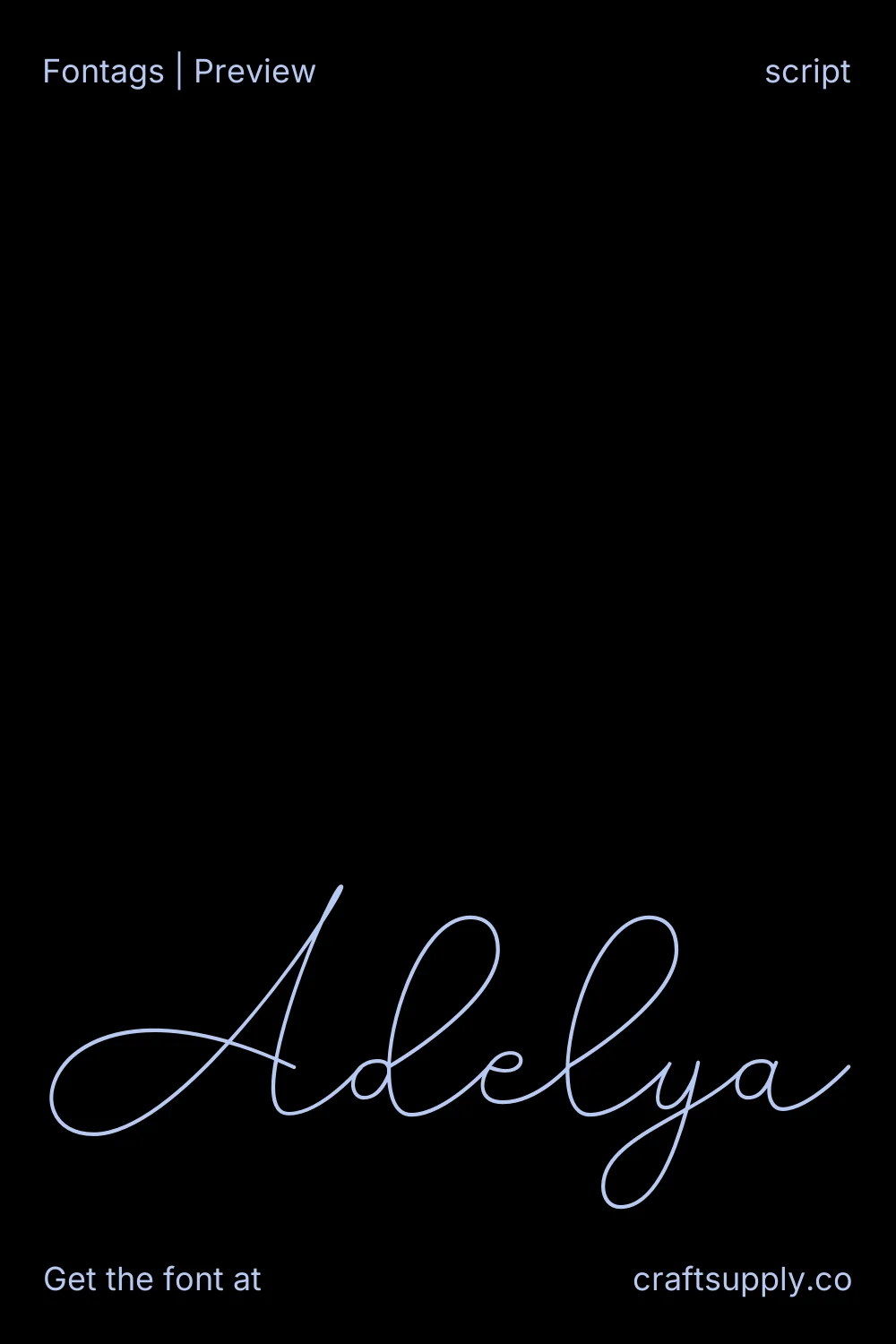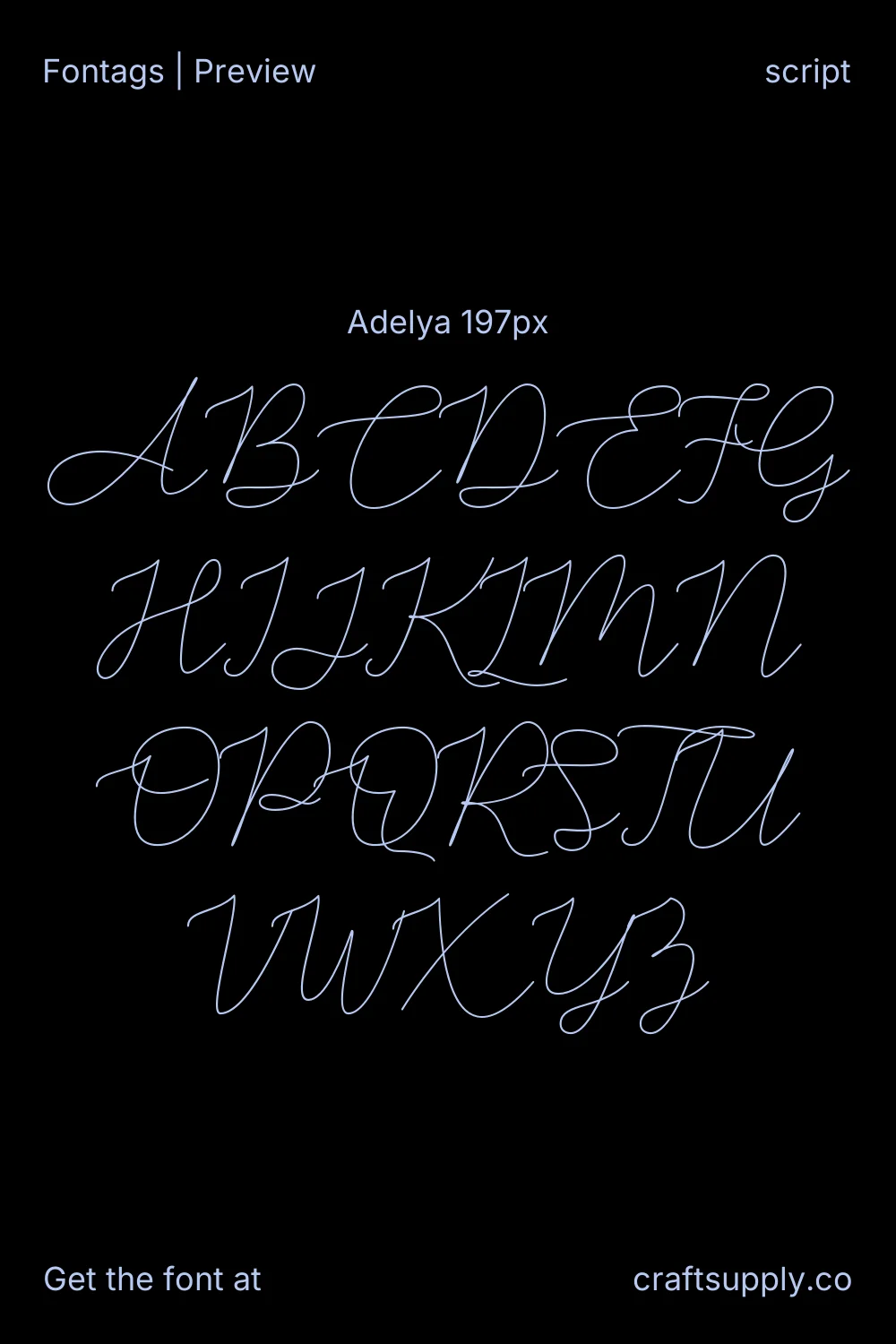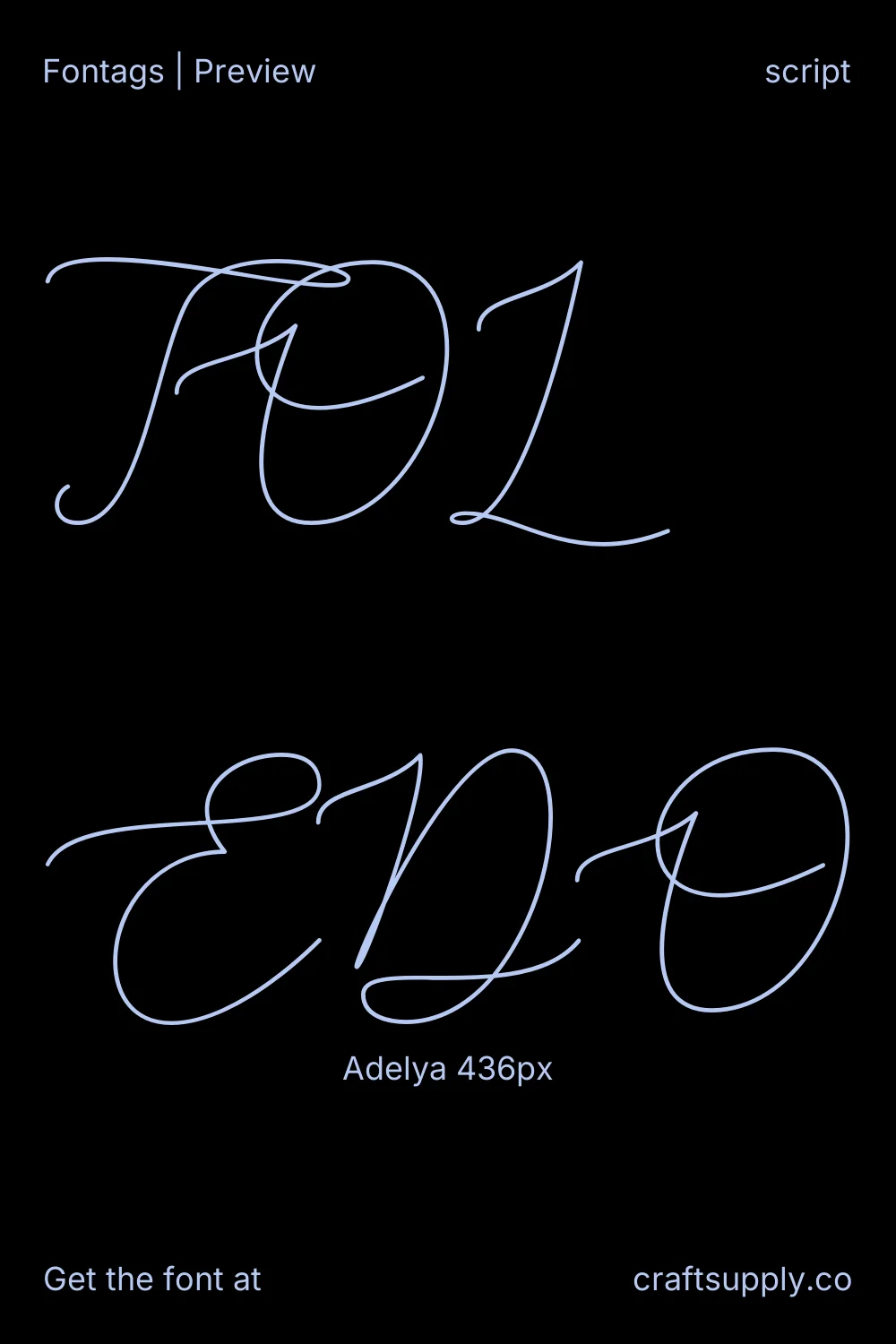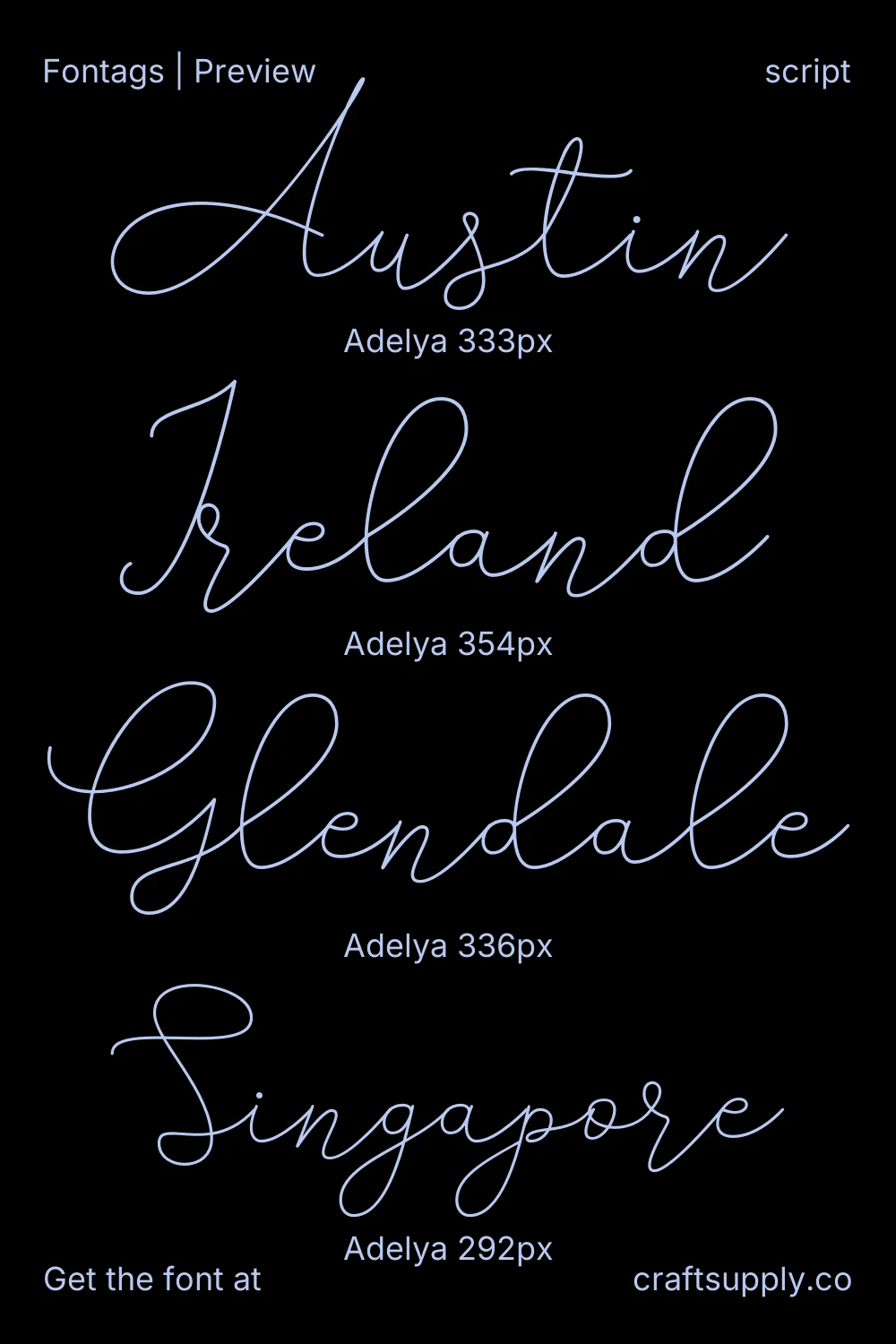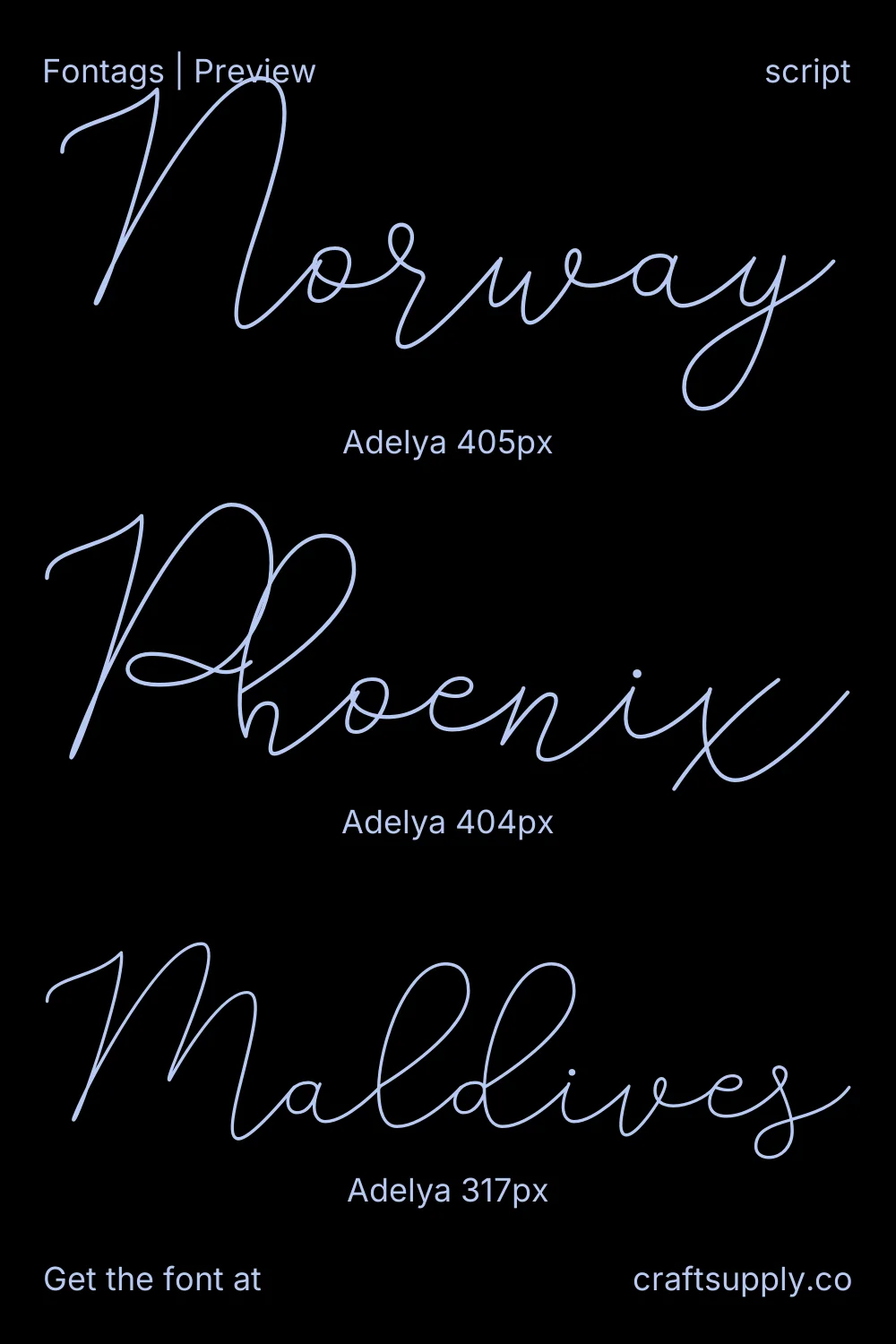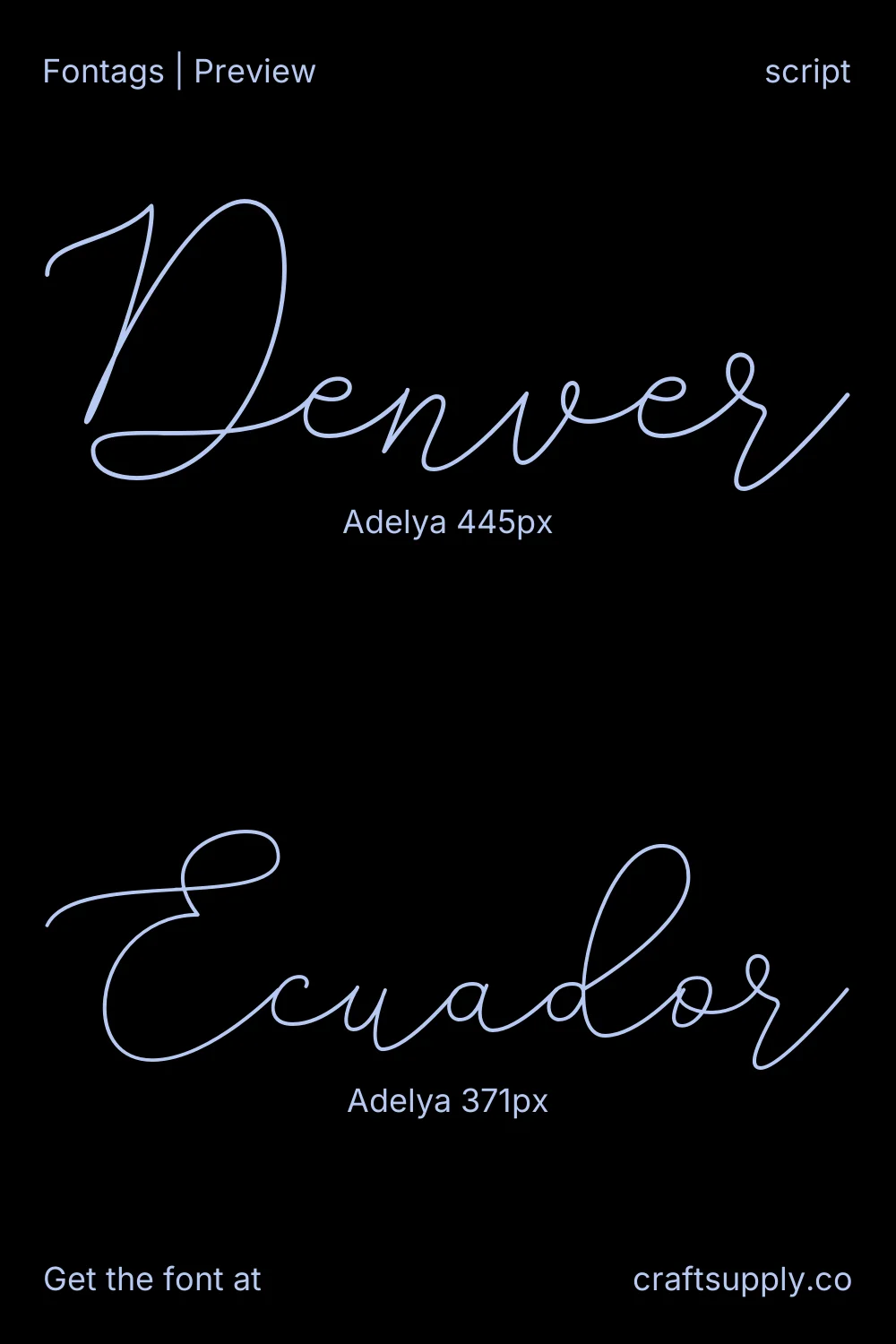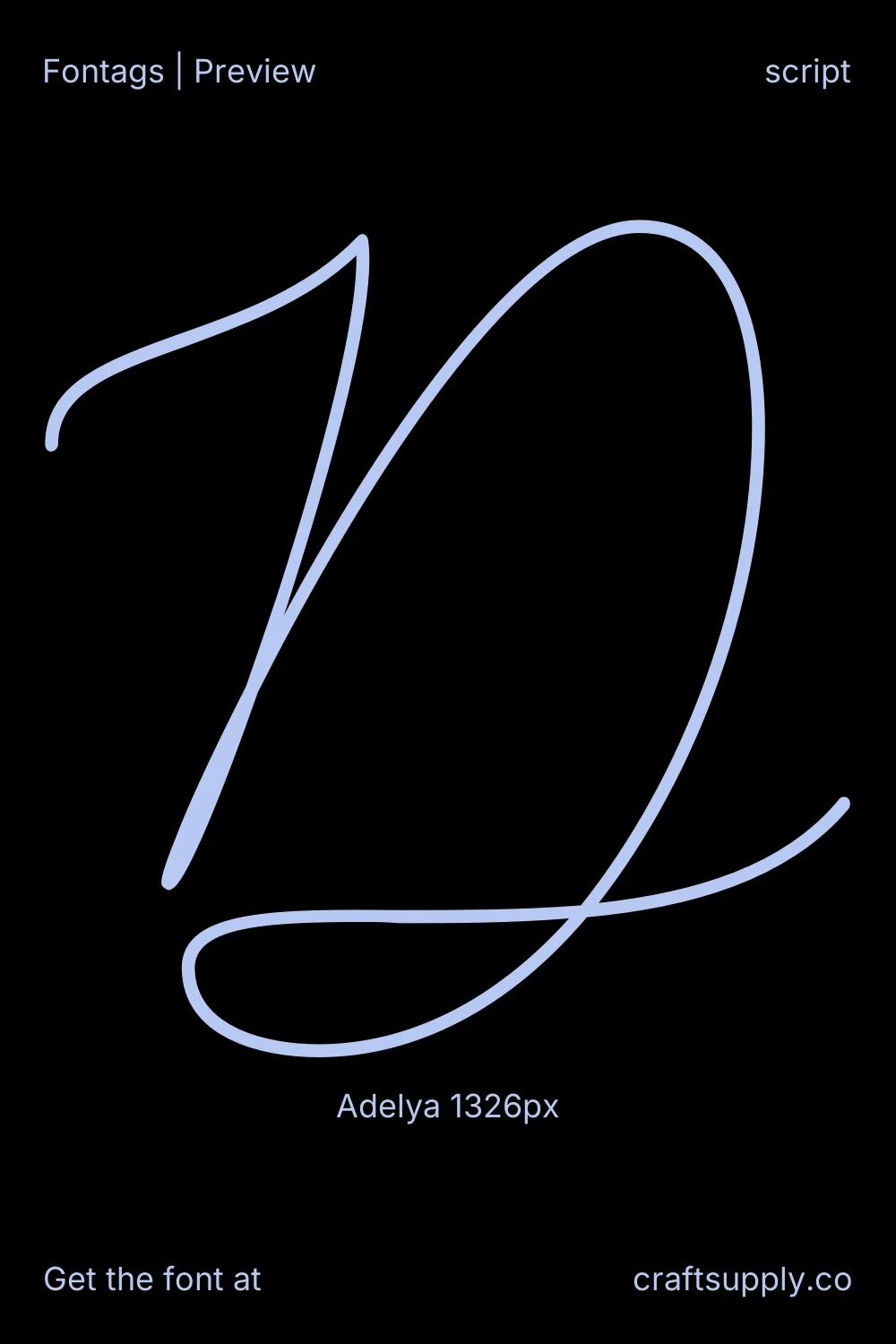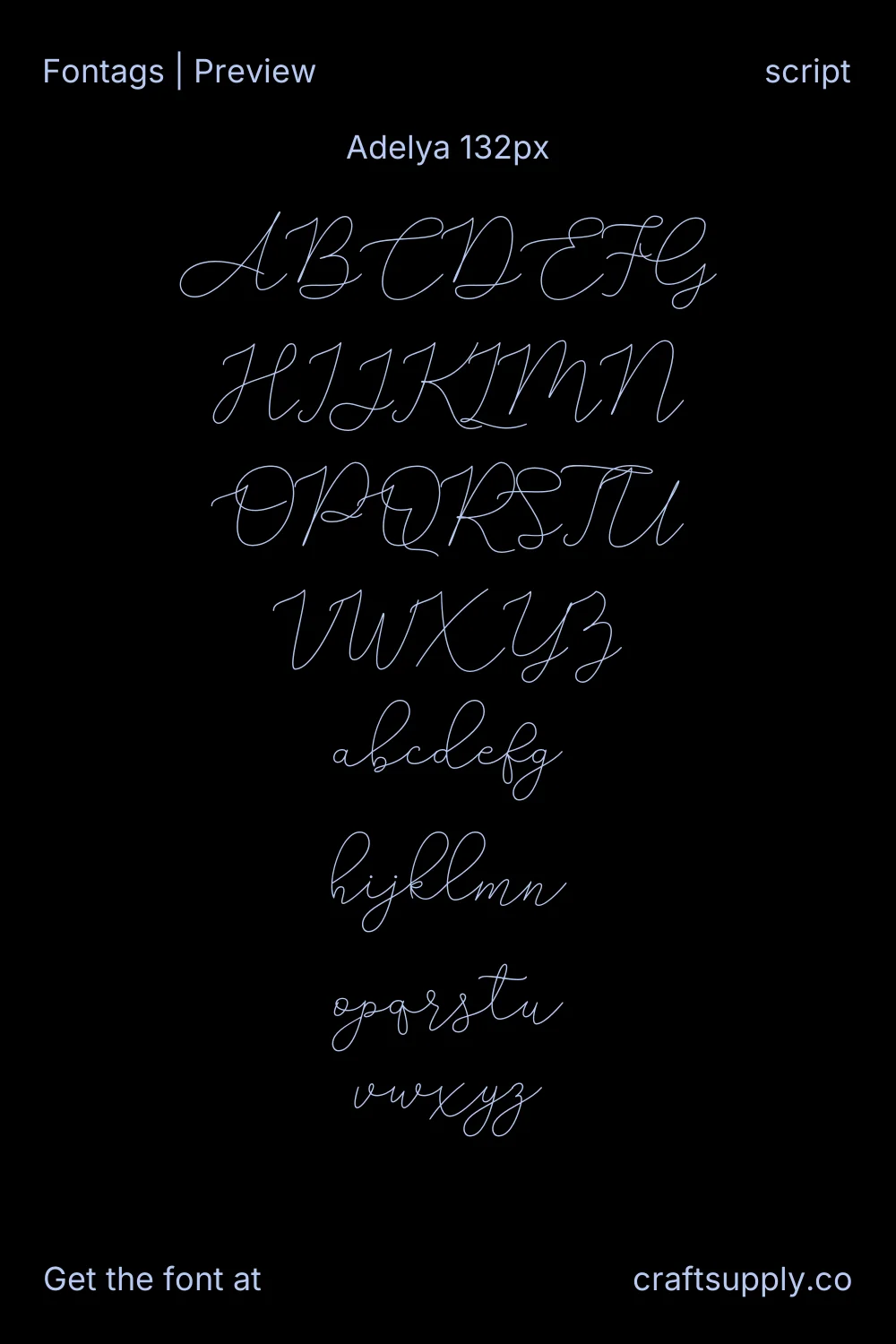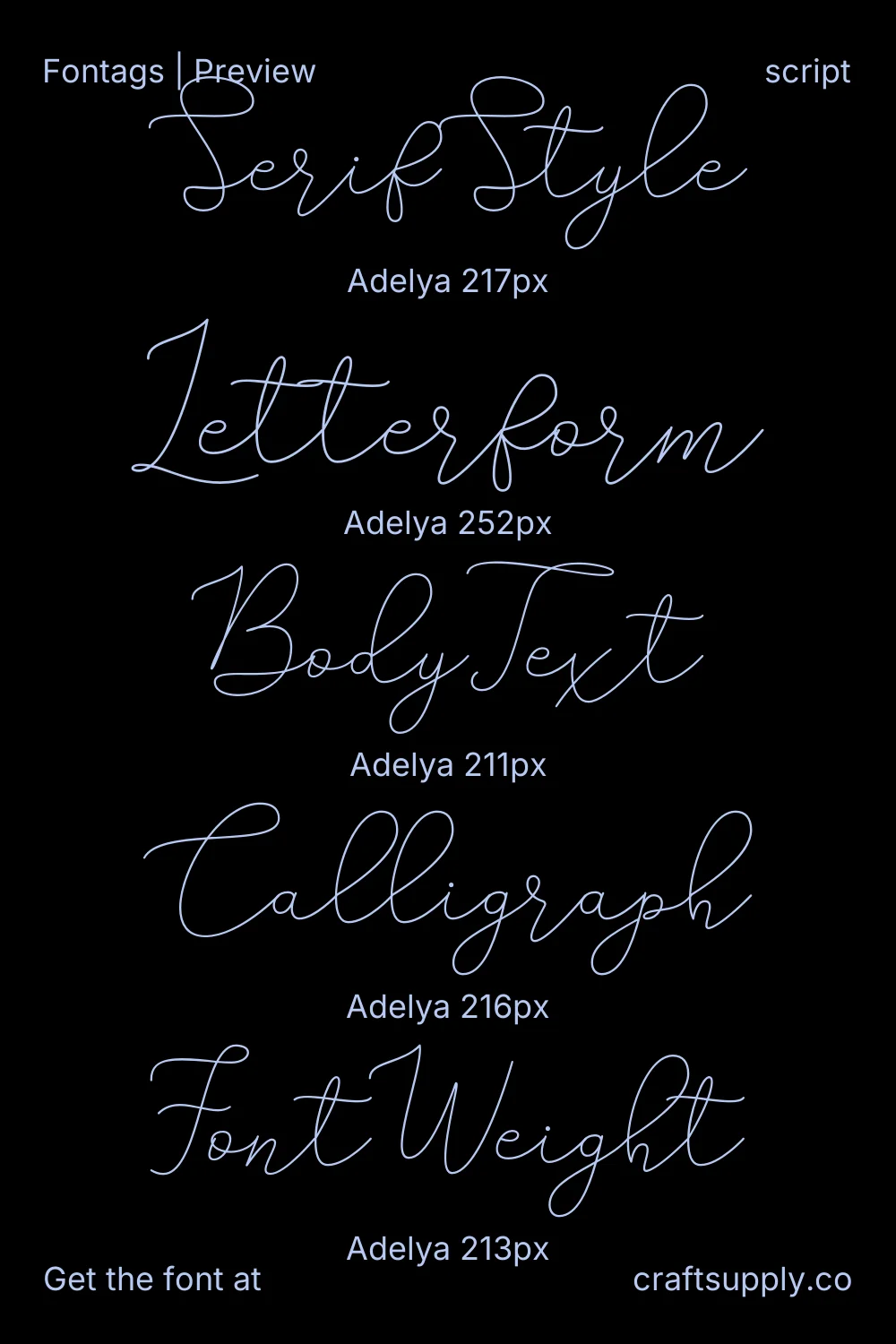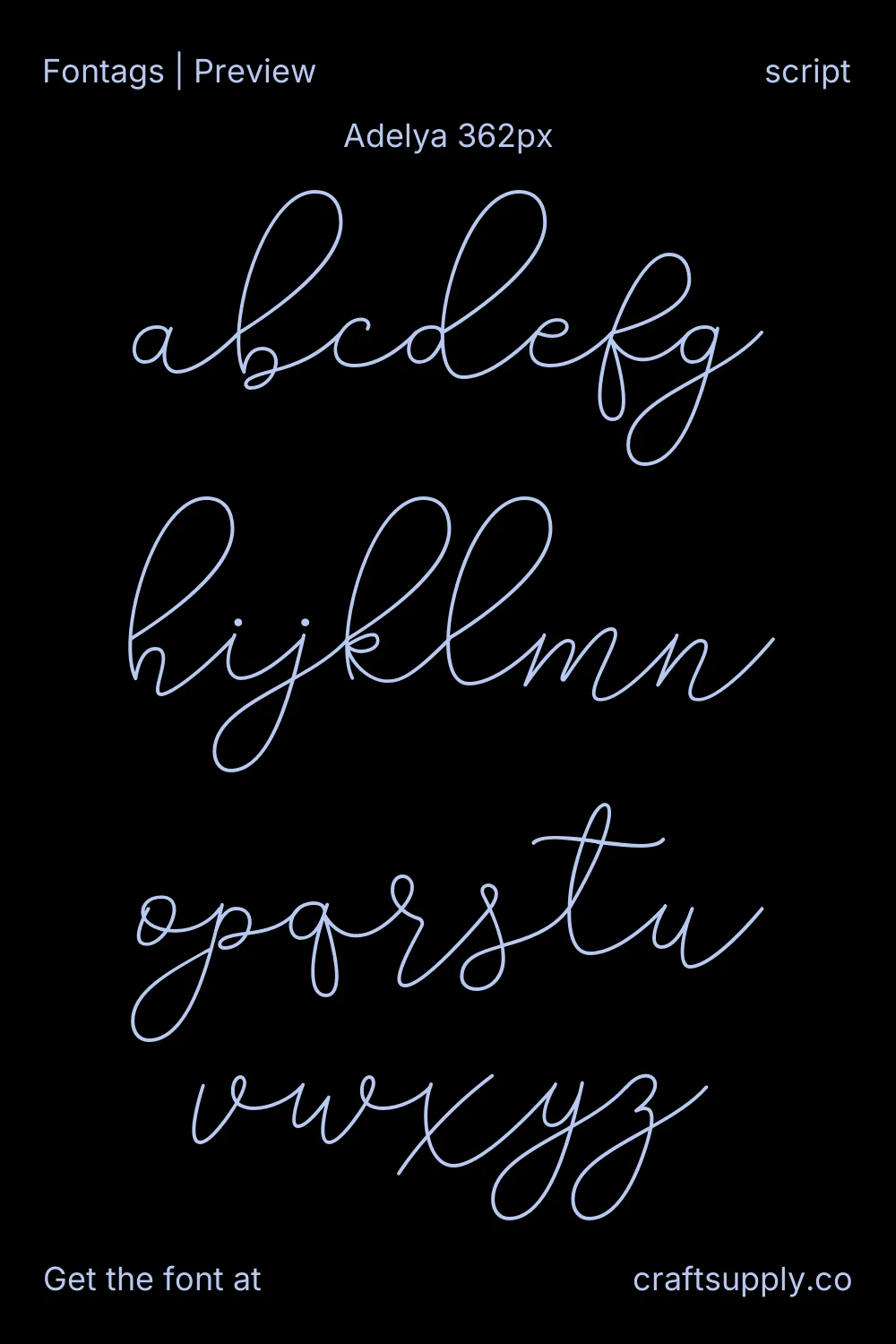
Adelya
Adelya is an elegant signature script with free-flowing monoline strokes and natural cursive transitions. It includes contextual alternates, stylistic sets, and special ligatures that bring handwritten authenticity to branding, invitations, packaging, and greeting cards. The font supports multilingual characters and is PUA encoded for easy access to alternates.